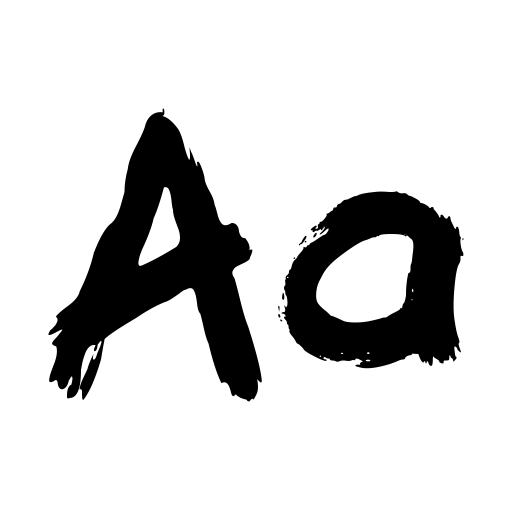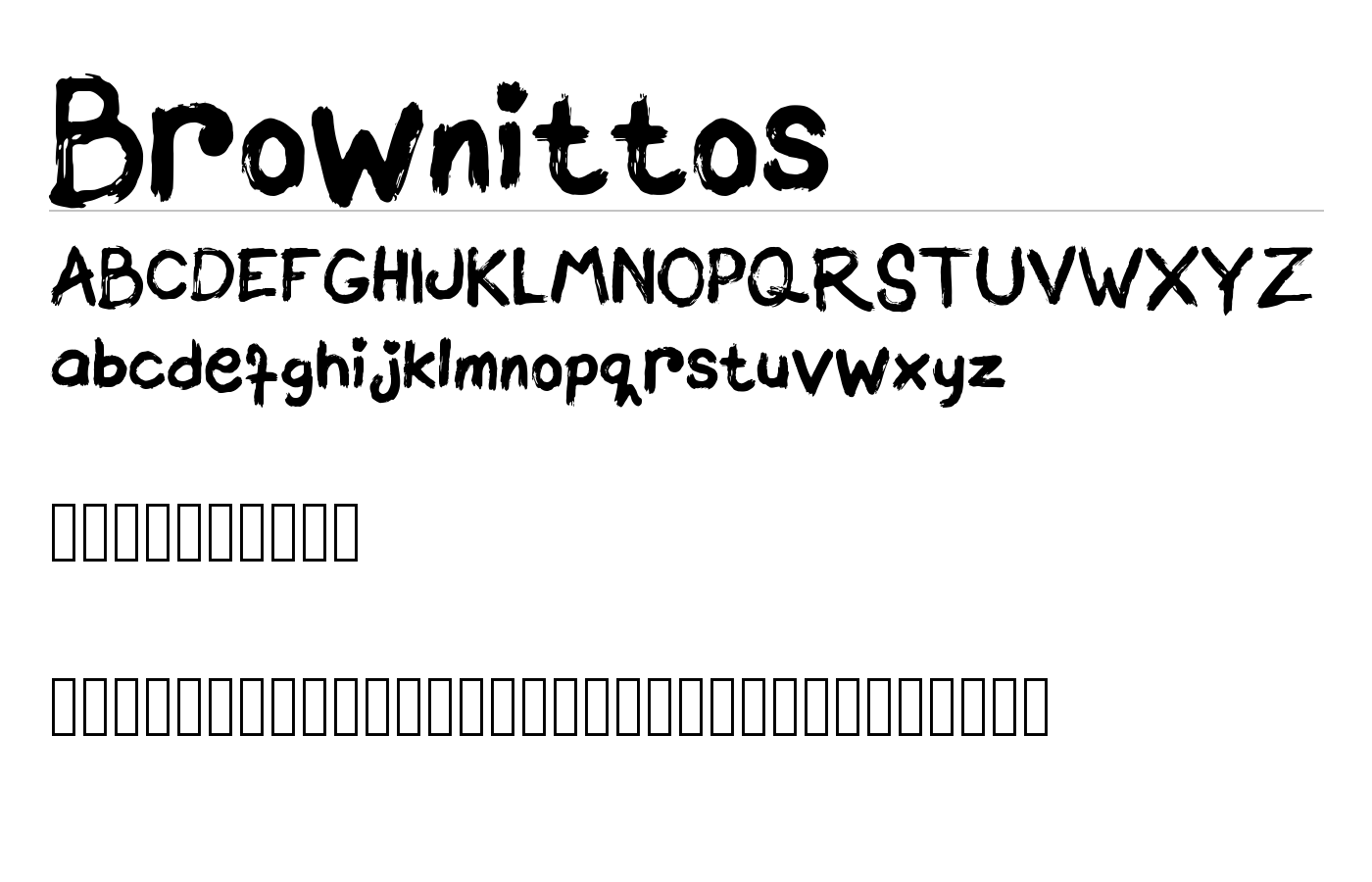
Brownittos is a playful and textured sans serif font with a hand-drawn, brushstroke appearance. Its uneven edges and casual style give it a friendly and informal feel, making it perfect for projects that aim to be approachable and creative, such as children’s books, casual branding, or artistic posters. This font’s unique personality adds warmth and character, standing out in headlines and expressive designs.
Brownittos Font